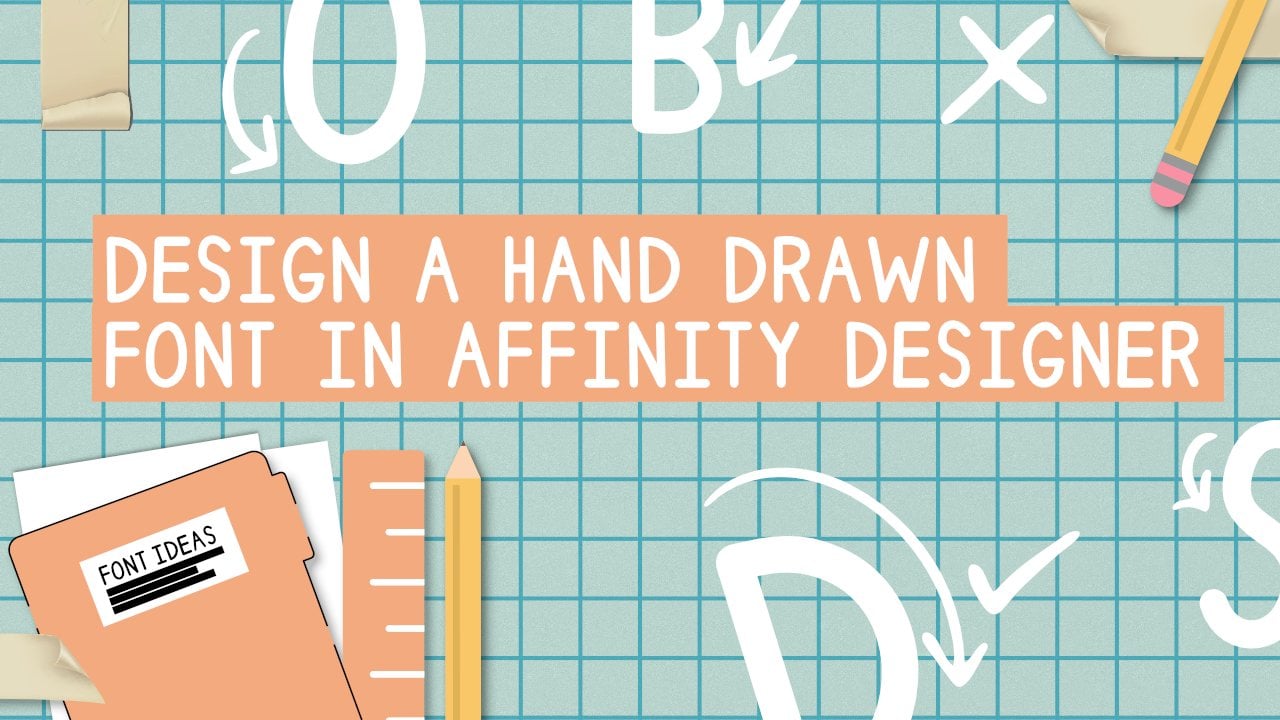
2. Tools Needed: So when it comes to tools that you'll need for this class, I've divided it up into two categories. One is must-haves and the other is nice to haves. So when it comes to must-haves, a computer with Affinity Designer and Glyphs Mini installed is necessary to create your font. Then also paper pencils and a black fine liner or any type of black dark on marker that you can utilize to outline your pencil sketches if you're choosing to go the analog route. Now for the nice to haves, these are absolutely necessary to complete the project, but I find them to be really helpful. So a scanner or something to photograph your hand-drawn letter forms in order to get them into your computer to digitize them. A lot of people have phones. If you have some sort of digital camera, you can do that if you don't have a scanner. Another nice to have is a drawing tablet and a stylus. Personally, I will be using a Helion and the stylus that comes with it. We could also potentially use like stamps on tablet with a stylus or even an iPad with an Apple pencil. And you can just sketch in something like Procreate. Or if you have access to it, something like Affinity Designer, the iPad app. You can utilize that as well. And then you can export that digital sketch to your bigger computer of that you'll then work with on Glyphs Mini, and just the affinity desktop. So who is this class geared towards? This class is geared towards anyone interested in learning how to create a font using Affinity Designer and Glyphs Mini, I will make sure to go at a comfortable pace. As I know, it can be tricky getting used to working in these pieces of software. But I'm sharing my process is I find that often courses relating to font and typeface design are usually exclusively done in Adobe software like Illustrator. And I wanted to highlight that there are other options out there. And I found that the affinity software can be used to do really similar things and is a really great competitor when it comes to design software on the market.
3. Course Project: So for your class project, we will be creating an all caps hand-drawn font. You will take your hand drawings and translated into a desktop font. We will start with sketches. You can opt to do analog pencil, pen and paper, like I said. Or we can use a tablet and say, Listen, sketch right on your computer. But if you do go the analog route, just note you have to find a way to get that drawing into your computer. So either a scanner or even using something like your phone's camera will work as well. And then you can just send that file over to your computer. And then once you complete your project though, you can submit the following to the course project gallery to share with your fellow classmates and myself. So for the deliverables, when you're ready, upload the following to the project gallery. A photo of your inspiration, some rough sketches of your letter forms, then the finalized vectorized digitized letter forms, and then your fool, a disease sample and glyphs. And then optional if you'd like to, to kinda like showcase what this is going to look like and how would say you might sell it on a market like Creative Market or something like that. Basically an image of a stylized use of your font. You can, you can either create something like a hero shot or you can even showcase it in a layout. I'm really looking forward to grading with you today. Let's get started.
4. Finding Inspiration : Before we jump into the whole process of creating and sketching our letter forms, I think it's really important to find inspiration. Inspiration for type is literally all around you. A great thing to do is setup a folder on your computer to save photos and then to head outside and snap photos of signs and posters that you see that grab your attention. Pay attention to things around you, from street signs to window displays, to fliers being handed out on the street. Topography is literally the core of communication in the world around us. The more you pay attention, the more you will be surprised at how many type related visual communication items you will actually see each day. Use your phone camera to snap photos and bring that back home to add to your inspiration folder, you can even grab any physical items you might see like newspapers, magazines and flyers, and add those to an actual physical folder to reference or scan them in and save them to your digital folder on your computer. If you don't have the opportunity to head out into your environment. Another good option is the Internet. I utilize Pinterest often to create a catalog of interesting type or items with type on them that I find inspiring. This is such a simple way to create a visual inspiration board that can organize all of your images in one place. Finally, last but not least, I'm absolutely obsessed with design and typography books. I collect them and I referenced them often for work. These are fantastic tools that can showcase inspiration or the actual reference books that explain concepts and offer design direction and guidance. Some of my favorites that relate directly to typography include designing type by Karen Chang. This is like a holy grail book that is part of a series n is incredibly in-depth when it comes to the whole design process of typography. Another book that I like is 22 tips and typography that some designers will never reveal by unrecorded. This isn't so much about designing tight as it is about utilizing typing communication design, and layout. But it is helpful to reference and utilize it better understand how type is often used in design work and how that can influence the overall design of type. Another book that I like isn't so much about typeface as it is about lettering. And that is creative lettering and beyond inspiring tips, techniques and ideas for hand-lettering your way to beautiful works of art. This is a fantastic book for looking at inspiring hand-write in calligraphic and just overall lettering inspired visuals. Om, I really like this just when I'm looking for something that is a little bit more organic. I'm inspired by calligraphy. I also really like vintage type catalogs from printers and tight boundaries. These are beautiful relics of an era pass, but that can bring inspiration to modern type design. After 500 years, the movable type revolution give way to photo composition and then to digital typefaces in various programming incarnations like what we're exploring today with affinity and glyphs. And this all reduce the need for factory foundries, which we will talk a bit about in the following lesson. Basically, the only remaining pieces of an American foundry are essentially they're worn type catalogs. And sometimes if you are lucky, you can find some of the actual metal plates are wooden plates of all of the letters. Historically, the rise of industry and spread of commerce created a need for an entire printing loam. And of course, distinctive type designs played a large role in articulating the importance of business and the joys of consumption. Type itself became a competitive business. And the majority of late 19th and early 20th century catalogs were designed to sell the new and old styles. Personally, I like to collect these beautiful items and I refer to them often for inspiration.
5. The Anatomy of Typography: Now that we've found our inspiration, what I suggest we do before we even begin the whole sketching process is go into a little bit more detail on the anatomy of type, some of the basics. So the first thing I like to go over is the difference between the words typeface versus font. So a typeface is a particular set of glyphs or sorts, which is basically an alphabet and its corresponding accessories such as numerals and punctuation. The chair common design. So for example, Helvetica is a really well-known typeface, and a font is a particular set of glyphs within that typeface. So 12 Helvetica is a font and 10 point Helvetica is a separate font. Same goes for different weights like 14 Helvetica bold is a different font than a 14 point Helvetica light. They are different fonts, but they are part of the same type face. So I like to look at typefaces almost like a family. I also like to share more information on the history behind some of this because it kind of relates to some of the words and themes and ideas that you hear when we talk about these concepts. So the reason these are different is because historically when a page of tax was laid out by hand before printing the organization of the thousands of small pieces of metal letters and sometimes would letters as well. It was really essential. So for centuries, a printer or a typesetter, what set type, letter by letter from a type case. The type was stored in a shallow would endure, and these were called job cases. And then these were all divided into small compartments for each letter, for each numeral, for each ligature, punctuation, market and Eve ring widths of spacing. In the United States, the most popular style of type case was the California JOB case. And this, the layout of glyphs was organized so that a typesetter could really quickly find the correct lift from memory. And it's almost similar to typing on a keyboard only it's a little bit slower. Older styles of type cases organize the capital letters and a separate case from the miniscule. So the smaller letters, lowercase letters, and the capital letter case was placed above the door of the miniscule is, which is where we get the terms uppercase and lowercase. Now the next kinda helpful thing to keep in mind is the difference between types of fonts and classifications. So Serif and Sans Serif are two of the most popular type classifications. And serifs are semi structural details are really small decorative flourishes on the ends of some of the strokes that make up letters and symbols. An example of this would be the Times New Roman font, sans serif, on the other hand, does not have these details are flourishes are a bit more linear, more modern, and you don't see those additional decorative elements on the line. A display font is a broad category of fonts that are designed for short form and often large format applications such as billboards or posters, logo types, headlines or headings in magazines or websites and book covers. Display fonts transcend style. So they can be a serif font, Slab Serif Script san-serif, and so on. A handwritten font on the other hand are fonts that look like they were written by hand, usually with a pen or a marker. Within the broad category, you'll find a range of different styles that kind of reflects the variations and subtle differences that you'll find an actual handwriting. The difference between script in hand-written fonts though, is based on the fact that script fonts are decorative or very calligraphic in nature. So they look like calligraphy. While true hand-written fonts reflect the penmanship, one might see in a letter, a monospace font, which is also known as a fixed pitch or fixed width or non-proportional font. A font whose letters and characters each occupied the same amount of horizontal space. This contrasts the variable with fonts for the letters and spacing might have different widths, monospaced fonts or customary and things like typewriters and for typesetting computer code, script fonts are fonts that are created to capture the flourish and artistry of traditional hand lettering and calligraphy. Script fonts are usually really decorative in nature and most should be used like one would use a display font, which is to make a statement rather than set tech. Typically, it's really difficult to read a script fonts when they are set in paragraph form. So usually you want to use them for callout and specific areas. You want to make a statement with these types of fonts are really popular with stationary logo types, branding and poster design. And they can be paired really nicely with a range of other font styles. So now that we understand the different classification of fonts and we understand a bit of the history of fonts. I want to talk more about kind of the nuances within the letters of your typefaces and fonts. So the weight of a particular font is the thickness of the character, and how those character outlines are relative to their height. A typeface may come in many different weights from ultralight, which are really, really thin, to extra bold or black, which are really thick. 46 weights are not unusual when it comes to family of typefaces. And a few typefaces have as many as a dozen different weights. The most common weights and cells are regular, bold and italics. The style of a font is usually connected to an angle, so it's either upright or slanted. So the normal style is usually upright or Roman as we call it, and it will display by default, many font families have in italics version of the font and the italic font style. The typeface has been slanted to the right and has had other changes made to the letter glyphs to make them slightly different, it approaches a more handwritten cursive style. And sometimes the characters may even connect oblique font faces, on the other hand, are found in many sans serif typefaces and their characters are also slanted, but unlike italics, the glyphs themselves are not changed. Oblique fonts are not true italics because they lack the change in letter shapes, which is part of that whole definition of Italic. Now, let's talk more about anatomy. Our letters and type will work creating them. So we're going to look at this in more detail. One we're working with in Affinity Designer right before we jump into pulling all of our letters and glyphs. But I just want to kind of give you a highlight and I don't include everything in here, just some of them more key important things that we're going to need for this particular class. So the baseline is where the letters sit. We utilize that within our guideline. These first three areas, the baseline, the cap plight, and the x-height. We utilize these in this guideline that it gave you guys for your sketches. The cap height is the distance from the baseline to the top of the capital letter. The x-height, on the other hand, is located in between the baseline and the cap light, and it is the height of the body of the lowercase letters. Then there is the bowl, which is the curved part of a character that encloses the circular or curved parts of some letters like D and B and an uppercase B. And then as we highlighted, there's Sir serifs. These are the slight projections finishing off a stroke of a letter in certain typefaces. Then there's the descender, which is the longest point on a letter that falls beyond the baseline. This stem is the base of a letter similar to the stem of a flower. This spine is the curvy body of the letter S and only the letter S, it gets its own term because the spine can be vertical or mostly horizontal depending on the typeface. And then there's the ascender. This is the portion of a letter that extends above the mean line of a font. Basically it's taller than the fonts, x-height, like in the lowercase letter B. So these are some additional parts of a letter that you might want to keep in mind. Since we are working in uppercase format. If we look at this as we see the beak, which is the top point of the letter as that spine is that curve that we talked about earlier. And then if we look at the uppercase B, we'll see, we'll see both of those curvatures in the letter, can call them also the upper lobe and the lower lobe. And then the space in between them is the waste. And then if we look at the g here, this is called the throat. And then if we look at our queue, we have the counter, which is that center space and then the tail. And then if we look at the letter E, similar with the letter F as well, and the little elements coming out other side of the letter R arms. And then the center element to create the h is called the crossbar. So in addition to the variables like cap height, x-height, and baseline, when it comes to your type. In overall design work, there are three additional variables that I want you to keep in mind. We'll talk more about this when we're working in glyphs. So the first I want to look at is tracking. This is the horizontal spacing between your letters. And then there is Letting, which is the vertical space between the lines of letters. So if you look at your letter forms in sentence format, it's the lines between your sentences. And then there's kerning, which is the spacing between the pairs of letters. And we're going to work a lot with the spacing between these letters when we're in lifts. So these are just some additional elements that you should keep in mind. So now that we have a better idea of the anatomy of type and different elements that keep in mind. Let's get started on sketching.
6. Tips for Sketching Letterforms: So the next step in this whole process, after you find your inspiration, you pull together some imagery and visuals that you like. Then we can begin the sketching process. I want to share some tips for when it comes to sketching that can help you as you work through this whole process. I think it's really important to think of your letter forms as shapes and masses instead of just outlines. When it comes to sketching, a lot of designers tend to draw letters without lines, even though this is not the best way to evaluate things like contrasts and negative spaces. So to find the best kind of equilibrium between black and white surfaces within our ladders, we need to draw masses. So that's kinda why you see me sketching out and kind of like filling space as I draw it rather than creating outlines. So here are three helpful tips when sketching. Start by drawing a skeleton, basically just your thin strokes for your letters. And then you can trace your lettering skeleton with a single line, thinking about space and mass. So I like to kind of like color it in and fill a whole space for the letter shape. You could also use a light table or transparent paper to hatch and look at the thick and thin strokes with a new sheet guided by that skeleton. You'll get a better sense of the contrast and spaces that you need. And then on a third sheet of paper on top of that, you can draw your outlines then and only then have a look at your letters and note modifications. I personally like to just start with the shapes isn't sketching and they don't worry if it's too messy as I can. Clean it up before I outline it and black for an easier transfer to digitizing. Also, I start in pencil so that I can erase it very easily. And then I utilize a dark black marker to outline my final letter forms so that it's easier to scan it in. You could also do this process and layers if you're working digitally, each piece of paper can be a layer, essentially. The next tip I want to share is align your letters to your grid. I suggest turning on the grid if you're working digitally or if you're sketching, use grid paper or paper with guide guidelines on them. Like a include in the class resources. The grid will allow us to kind of like define the rhythm of our composition and helps to guide us to make sure that we're following the right path in terms of the direction and flow of our letter forms. When letters are well balanced and aligned with the grid, the whole work seems to be a lot more consistent, legible, and visually appealing. The final tip I want to share is keep thin and thick strokes consistent. Since the Latin alphabet was born, letters were written by hand with nibs brushes. The primary technique consisted of increasing the pressure against the paper when tracing downstrokes and then decreasing it on the upstrokes. And as a result, this general well-developed downstroke SQL thick upstrokes equal thin, thick and thin strokes are the core of letter forms. They define their contrast and the overall aesthetic. And to guarantee the homogeny and legibility of your letters, we'd need to draw every thick and thin stroke, the same weight every time, respectively in terms of how they look on other letters. And by doing so, we will also bring rhythm to our load are formed, which will directly increase their overall visual appeal. Now once you've finished your sketches, outline in a dark pen so that you have clear contrast on your page and scan in your sketched letters into your computer, then you can load this scanned page into Affinity Designer. If you're sketching digitally, you can just set up a new layer on top of your sketch to begin the whole digitizing process.
7. Sketching in Affinity Designer on the iPad: Now I want to highlight some other ways that you can go about creating your sketches outside, the more analog way that we did originally. So if you don't wanna do something analogue and you prefer just to do things digitally. You can work on your iPad or you can just work in Affinity Designer on your desktop. I just wanted to show an additional kind of auction with the iPad. Affinity has iPad apps, so they're Affinity Designer program and their Affinity Photo Program both have iPad versions of the software in app form. But you could also use something like Procreate. If you wanted to sketch in Procreate and then export those sketches to your computer. You can do that. But I also like to highlight that there's apps for the Affinity software right on your iPad. So I'm just going to set up a new document by launching my Affinity Designer app. I'm going to select New Document. And then I, it's not really going to matter too much in terms of resolution because this is just a sketch. But what I'm gonna do is just change my document from device to print. And then I'm going to change it to from millimeters to inches. And then I'm just going to keep an A4 format. And then I'm going to change my orientation from portrait to landscape. And then I'm going to click transparent background just so that I have the option to have a transparency if needed and then hit Okay. And then this is what your software looks like when you are on the inside of affinity, right? On your app. And the nice thing about being able to work on the app versus the desktop is that you can go back and forth. I'm going to show how you can do this on the desktop as well. But for now I just wanted to highlight that you can do this on your iPad. You can do your sketching on your iPad. What's nice is with the Affinity software, you can change to different kinds of persona. So we're going to work in the pixel persona that's right in the upper left-hand menu bar here it's at second little blue option that looks like a lot of little pixels in a circular shape. And then next to that is designer persona. And then there's also the Export persona, but only want to worry about right now is the pixel persona. And this gives you access to some really great brushes. You could do this in vector format to start with if you wanted. But I just like the idea of kind of like having a sketch really feels sketching things out. And then going into the vectoring part of the process. So I'm going to select my brush tool here. It's on the left-hand side. It's the second option down. And then on the right-hand side, these are all of our studios. And what's nice is if you hit this little question mark at the bottom, you'll get a pop-up of all the names of the studios and the tools on each side and your menu options. So we're going to go to the Brushes studio really quick. And I want to highlight just the, the, the breadth of the amount of brushes that you have in terms of options. So what I want to do, you can access dry media based, basic brushes, acrylic squashes, inks. But what I wanna do is go down to the pencil brushes so that I can utilize it for kind of like just basic sketching. And I'm going to select the HB brush. I'm going to increase the size of it by going to my stroke studio here, kind of looks like a brush stroke. And then when you click on it, you have the options to adjust your width. And then you can also adjust the pressure sensitivity here as well. But we don't, we're not going to worry about that too much here. I just want to increase the width so it's easy to see. And then at the very bottom, once you selected this, you can adjust the width. You can adjust the opacity, you can adjust the flow, the hardness of your pencil, and other elements like that. So what I'm gonna do is just have my hardness at a 100 percent. I'm going to increase my width just a bit so it's easier to see. And then I'm gonna go into my layer studio here on the right-hand side, I'm gonna select the layer studio. Looks like a bunch of pieces of paper layered on top. And I'm going to select this little plus icon so I can add a pixel layer. And then what I'm gonna do is go back to my designer persona. And I'm going to add a background using the rectangle tool just so that it's easy for us to see what we're doing here. It doesn't have to be black. I'm going to change it to white just for visibility sake. And then I'm going to turn on Magnetics in the lower left-hand side here just so that I can make sure it's the full width of my screen here. I'm going to click on my color wheel here just so that it pulls recommend. What's nice with the magnetics is that you'll see these little green and red lines pop up so you know your, your elements are fine. And then I'm also going to go back to that rectangle. And I'm going to go in and I'm going to add a stroke so that it's easy for me to kind of see where everything is. Because if you have just a page created on Affinity Designer, you're likely to have a white background. You can change the background color if you wanted to in your settings. But I just haven't set up this way. So I find that it's just a little bit easier to add an outline sewing know the size of my page here. And then I'm going to click on that show studio again to pull it in. And then I'm gonna go back into my layers. And I'm going to select that rectangle layer. I'm going to go into my layer options and I'm going to hit the little lock button so that way it won't move. And then I'm going to go to that new pixel layer that I've created and that's where I'm going to sketch. So I'm just going to increase this a bit. And what's nice is that you can go into your pixel persona and you have access to all of these sketch really feeling pencils and brushes and things like that. So I'm going to update my color, my color wheel to just so like a grayish, dark grayish color just so that we can see what we're doing. I'm going to make sure I don't have a stroke on. And then I'm going to select my brush. I'm going to go to my brushes options. I'm going to go down two pencils. I'm going to select that mechanical for b. And then I'm going to adjust my size. I think this is a good size for us to kind of see what we're doing. I'm going to add some rulers just so that I have kinda of like a guide. So I'm gonna go back to my designer persona. And then I'm going to pull in everything from the studio pen. I'm just going to create some guides for myself and I'm going to go up to my upper menu. I'm going to select my document menu and I'm going to go to guides, and I'm going to select Show Guides. And I'm going to add a horizontal guide. And then I'm gonna add another one. And then I'm going to add another one. And you'll see in a moment that these are going to be different colors. I'm just going to select them. And I'm going to move them up and then move them down just so that I have something to see and look at in terms of the placement of my shapes. And I'll include guides for you all in your class, resources. And I notice there's a little hard to see, but what I'm gonna do is on top of this, add actual guidelines with my pen tool, just so that it's easy for you all to see on screen. So I have this red guy here at now. So I'm going to just hit that first end and then tap on the other end. And then I'm gonna go to my stroke and I'm going to update the color so that it's black. And then I'm going to go to my stroke studio and resize this width down a bit. And once I've made that first one, I'm going to go into my Edit menu. I'm going to select it and I'm just going to hit Duplicate. And then I'm going to duplicate it two times total. And then I'll select my move tool and then I'll just bump that duplicated line to where I put that original guide. And then I'm going to select the next duplicate and bring it down to where I duplicated that third line. So I have this nice clean area to work with. So now that I've done that, I'm going to go back to my persona or back to my pixel persona. And then I'm going to go into my layers once more. I'm going to hit a new, I'm going to select the plus and select new pixel layer. And this is where we're going to be doing our sketching. So I'm gonna go back to my brushes, make sure I select the brush that I want to be working with, which is that pencil brush, mechanical HB. And that I'm going to start sketching out some of these concepts. So I want to I don't, I don't need it to be perfect. I just kinda wanna play with line placement and, and just kind of keep in mind the overall shape that I want to create with this, uh, kinda wanted to have a bit of that hand-drawn feel as if I was using some sort of marker to draw some of these letters out and want them to feel rounded as well. So the whole purpose for creating these lines is to kind of give you guidelines for the placement of your letters. This top line is your Kaplan. It's also the height for your capital letters. And since we're doing a all caps font, we want to make sure that our letters spanned on this whole length. I'm going to keep in mind the overall style that you're going for. I'm going for something a little like modern cartoony. I'm, I'm gonna talk about modern versus say traditional. I feel like it also plays into whether or not you want to have a serif or sans-serif. And as I explained in, I am not necessarily going for a very clean and precise sans serif, but I do want it to feel a more casual. So that's what we're gonna do with this. And as you see, I've added these little elements here, but what you can do is just select your eraser brush tool and you can erase any element and that you don't want included. And what's nice choose that you can change the eraser brush as well to match the actual brush that you're using to draw with. And what I like to do when I'm creating these is kinda start with the line work and then fill in for how thick I want the letter to feel. A typeface fonts that you find in on markets and things like that tend to have various weights to them. But for this one, just for ease views and just to make it a little bit simpler to work with, we're just going to work in one weight. So keeping in mind the weight of each of your letters, making sure that they match. But typically there's a bold and italic and then a regular weight for most fonts that you'll see out there. And there are certain letters that I like to start with as well because I can utilize them and copy them and revise them like the R here can also be RPI if you remove that leg B. So I'm going to utilize my Lasso Tool here. And I'm going to select this R. And then I'm going to go into my menu options up here. I'm going to select Duplicate. And then I'm going to select my move arrow here. And I'm gonna move this over. I duplicated that. And then I'm just going to select my eraser brush tool. I'm going to deselect this now, just tap anywhere on my screen and then I'm going to go into my erase brush tool and I'm just going to erase the leg of this here. And it gives me the p. And then I'm gonna do that same process again, select the P. Now, go into my menu options, select duplicate, select my move tool. Move this letter over. Select my freehand selection tool again and just tap on my screen so it deselects. And then I'm going to select my brush tool again. And then I'm going to make the bottom part of the B now. And then just adjusting and revising as needed. And now I'm gonna make the O, I'm going to utilize this C as a starting point and then just kinda adjusted as I go. So I'm going to select it with my Lasso selection tool and select Duplicate. I'm going to just tap out of the screen. So I de-selected, go to my move tool, select that, and then just move it over. Can, once I've duplicated that, then I can go in and they can start revising it. So I want the OH, to kind of have the same feel of this C here. And I'm just basically going to close this up and clean up my line work. And this is kind of one of the reasons why I like to do my sketching digitally as well makes it a little bit more streamlined and quicker. And I'm just going to revise this to basically kind of create more of a U-shape. I'm gonna take my eraser brush and I'm going to erase the top here. And I'm just going to adjust the overall angles as I think you raise it to the midline and then finish the line work here just because on the top kind of comes in and I want to make sure that the you go straight up. So now I'll go to my paintbrush tool. And again, keeping in mind the overall character of what I am trying to establish with the rest of these letters. So I wanna, I don't want the line for the YouTube, kind of like a flat cap. I want it to be rounded. So I'm keeping that in mind as I draw this in. All right, So basically this is how you can continue to sketch in your, on your iPad using Affinity Designer on the iPad app. Now I want to show you can do the same kind of process. But on the desktop version, we're just going to take this whole file and I'm going to export it and just show you around the interface on the desktop version as well. So what I'm gonna do is export this file. I'm going to select my menu option up here, and I'm going to go and select Export. And then I'm gonna save this as PSD file because pianos raster, we were working on it in the raster pixel persona anyways. So I'm going to change my file name. I'm going to change my filename to letter sketches. Hit Return. I'm gonna make sure I export the whole document. Make sure preserve accuracy for everything else, and then make sure it's PSD and then hit Okay, and then I'm gonna save this to my iPad. And then the beauty of working in a Mac environment for me is the E, the accessibility. So I'm just gonna go to my files and I'll be able to select my recent files. And my letter sketches will be there automatically. And what I can do is just hit the Select icon in the upper right-hand corner. Select that file. And then I can hit share. And then I can just AirDrop it directly to my computer. And then I can hit done. And then we can go into the desktop version of this and just kind of give it a look.
8. Sketching in Affinity Designer on the Desktop: Now that we've sketched on the iPad, I wanted to take us into Affinity Designer on the desktop, just so that you can get a feel for the overall layout of the software on the computer. I already exported that filed. So what I wanna do is right-click that and I'm going to open it with my Affinity Designer app. And I am working on the desktop without a mouse. They'll, but you can do this with a mouse. I'm personally working with a Helion tablet, um, because it just, it gives me more of a realistic real-life feel when I'm sketching and makes it a little bit easier for me to digitize my artwork because I can see what I'm doing and it can utilize the stylus pencil tool. And it just feels a little bit more organic for me. Alright, so as you see when we open this up, we have all of the different layers that we were working with before. It builds really similar. Only. We don't necessarily have like the studio layout that we had on the iPad that here on the right-hand side, you'll have access to those same kinds of things like color studio, your swatches, your Stroke Studio, all of your layers on your transformed area. And then on the left-hand side, you'll have all of your tools here. And then on the top you have your regularly document menus. So what I'm gonna do though, just like what we were doing before you do have the ability to switch between persona. So right now we're in the designer persona. If we click on that middle one, it looks like pixels. We are going to be in our pixel persona. And right next to that you have the export persona again. So let's go back to the pixel persona. And what we're going to do is work on creating more of these letters so that we can finalize the entire alphabet and get it ready to be digitized in a pixel persona. Like I said, you have access to all of the same kind of tools that you wouldn't designer persona. You have the ability just it's, it's sketching. You're, you're not necessarily having to worry about nodes and lines segments like you would in the designer view because you are working with vectors. But instead you're just working with raster layer. So you can kind of just draw on the screen. So I'm going to select that brush tool and then I'm gonna go to the right-hand side and I'm going to go to my stroke and I'm just, I'm gonna go to my brush, my brushes options here and then I'm going to change it from basic to the pencils again. And just like before I have access to all of this same one. So I'm going to select that mechanical pencil HUB again. And then I'm going to go into my stroke and I'm going to increase the size of the stroke. I'm going to use this little eyedropper tool and I'm going to pick up my color just so that I can make sure I have the same color. Again, I'm removing the stroke and I just want to have the color and the fill. And then I'm going to go back to that stroke and I'm going to increase its size of it and just double-check. So making sure I'm on the brush tool, Let's test this. Hey, it's a little small, so I'm going to increase the size of my stroke. And then I'm going to go into the upper left-hand menu here you'll see you have the opportunity to adjust your width, opacity, flow hardness, just like what we saw before, only it just in a different place. So we're going to adjust our width of this. And then I'm gonna change my flow from 15 percent to a 100 percent. And I think this is a good starting point, so alright, so we have an OH, what I think we should probably do next is our a and we can, again, kind of reuse some of these elements. So the thing is though, we just want to make sure we're on the correct layer, or we can select all of these layers and just merge them to make things a little easier. So what I would do is select the first pixel in our layer bunch here, hold Shift, and then select the last one. And then I'm going to, and then I'm going to right-click by hitting Control and then clicking on them. And I'm going to select Group. And I'm going to double-click where it says group, and I'm going to rename this to letters. And then these curves here, I'm just going to select them by clicking on the first one, holding Shift, selecting the last one. And then right-clicking them by selecting control-click. And then I'm going to go to group again. And I'm going to rename this by clicking where it says group and renaming it guidelines. And we've already kind of have an idea of these guidelines so they don't need to be as dark. So with that layer group selected, I'm gonna go to my opacity here. I'm just going to bring it down a bit that way. It's not so intrusive as I'm creating these. And now what I can do is select that, LET letters layer group. And then I'm going to right-click it by hitting Control click. And I'm going to select rasterize. And it'll make everything all on the same layer. So. Now what I wanna do is again, start on this a. So what I'm gonna do is go to the left-hand side my tools. I'm going to select my lasso tool and I'm going to select the peak because I think it's the closest shape to what I want my eta look like. And then I'm going to go into my top menu. I'm after I've selected that P, I'm going to select Edit, Copy and then Edit Paste. And then I'm gonna take my move arrow and I'm just going to move this P over. And then I'm going to start revising it. So I'm just going to tap out of this by selecting my lasso and tapping anywhere on the screen to de-select. And then I'm going to go to my Eraser tool. And I'm just going to make sure I'm on that letter P layer and I'm going to start to just erase some of this. I'm going to erase where this kind of curve is happening and go in a slightly curved that edge. And then I'm gonna go to my office, my brush, and then I'm going to start filling in to create the shape that I'm going for, for this a. Again, I create the line and then I kind of fill it in by adding the shape. And then I just use the eraser tool to kind of clean up around what I'm doing to make sure everything kinda feels the way I want it to feel. Then again, I can decrease the size of the eraser, increase it on my keyboard. I could do open bracket to decrease, close bracket to increase the size of my eraser. Now I'm going to work on my D because again, I feel like this P can work for the beginning of the letter D for me. So I'm going to go and select it with my lasso tool, making sure I'm on the correct layer. Because again, once we pasted the P to recreate the a created on a new layer. So just going back to that original layer, selecting it, then hit it, then hitting, and then going up to Edit and then select Copy, Edit, Paste. And then clicking anywhere on the art board to de-select is taking your move arrow tool and then just dragging it over to this side. So this is going to be the start of our letter D. I'm gonna get in a little bit closer. So you can kind of highlight why I think this will work. So what do we look at this? The top portion I think is it has a really nice shape for that letter D. So I'm going to select my eraser tool and I'm going to make sure I'm on the correct layer. I'm going to start erasing that center area here. I'm going to then go into my brush tool and then I'm going to start to reshape this. And then again, I wanna make sure I keep the weight similar. And then I can go in and clean up anything that I don't necessarily like using my eraser tool. So it's very similar to what you get on the iPad. Only the interface is just slightly different. It just once you get orientated, the process is exactly the same. Now what I'm gonna do is kind of speed things up a little. I'm going to finish creating the rest of these letters. I'm going to finish filling up this first area and then I'm going to just duplicate my guidelines and bring them down so that I can create the rest of the alphabet. So really quickly I'm just going to select that guideline layer, layer group. And then I'm going to select Edit copy. And then I'm going to select Edit Paste. And then I'm gonna take my move arrow. And I'm just going to drag those guidelines down. And then I'm going to do the same thing. I'm going to copy and paste once more and then I'm going to drag those guidelines. I can get nine letters on each of these lines, so we'll have everything all on the same board and everything should be, will be the same height because of these guidelines. So I'm going to fast-forward a little bit and get through creating the rest of these letters. And then we'll jump into the next step, which is digitizing the letters here in Affinity Designer S. Okay? Okay. Okay.